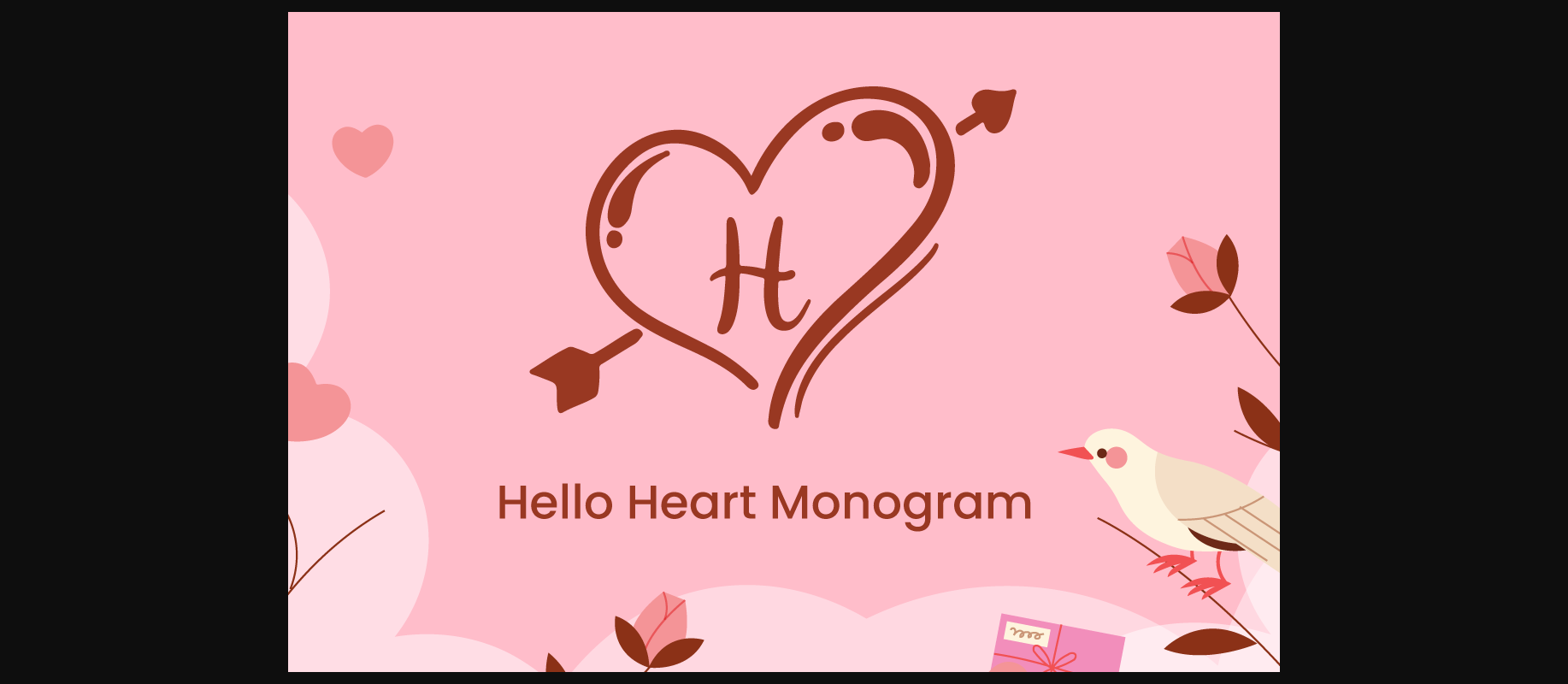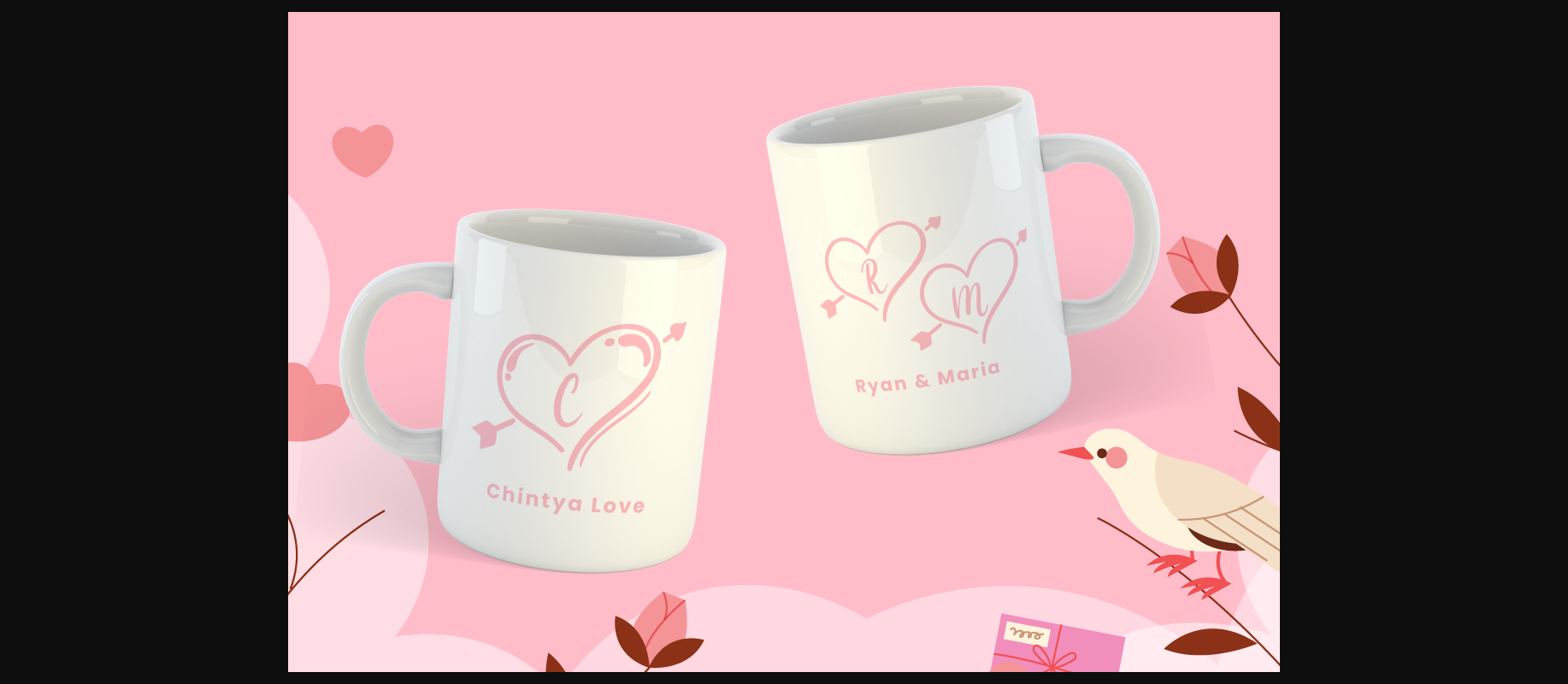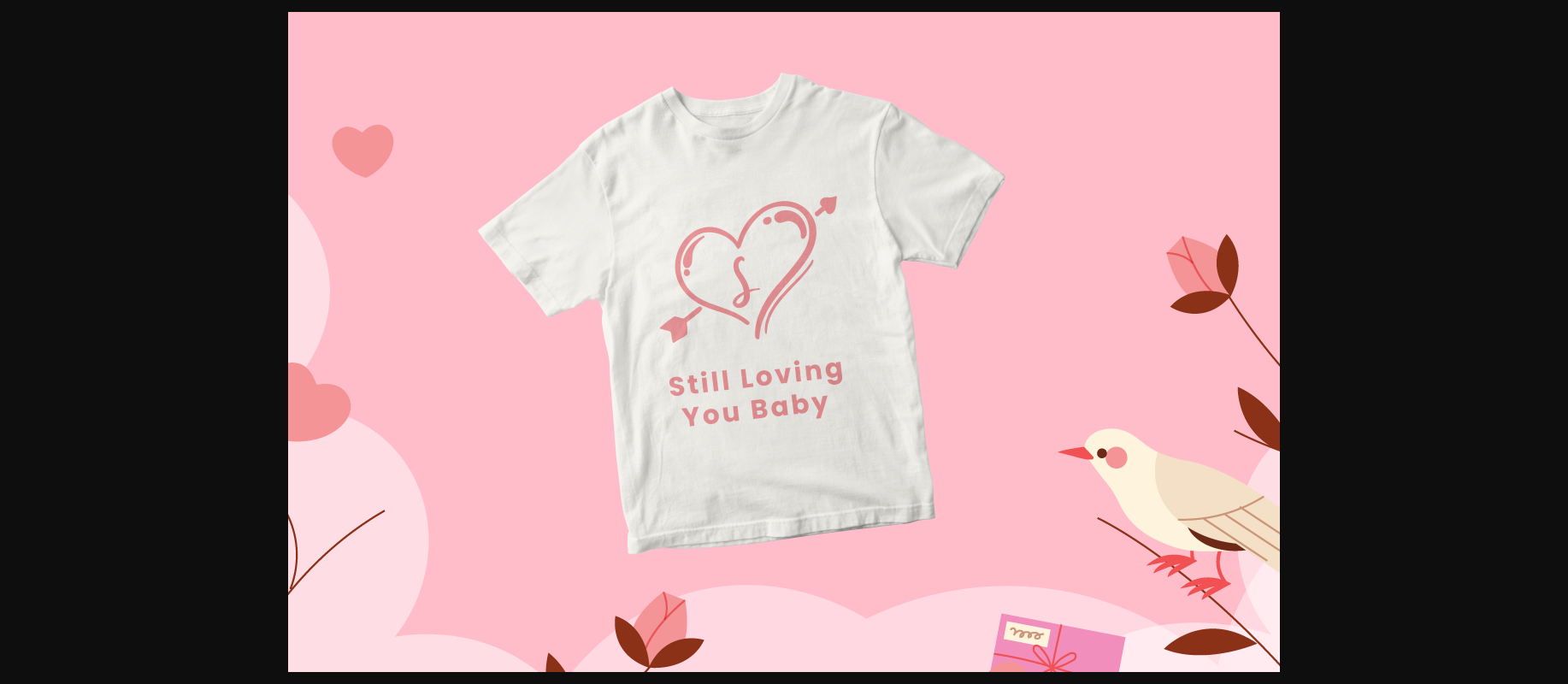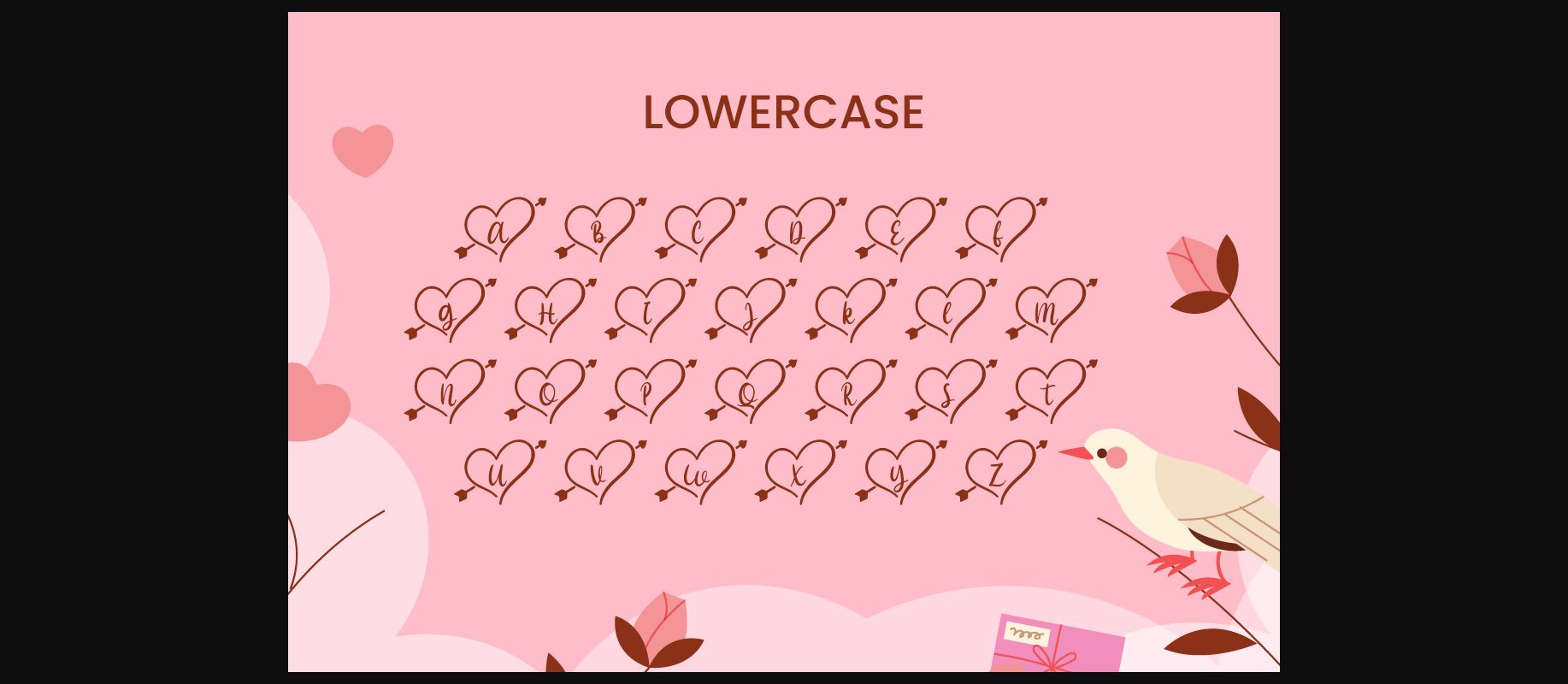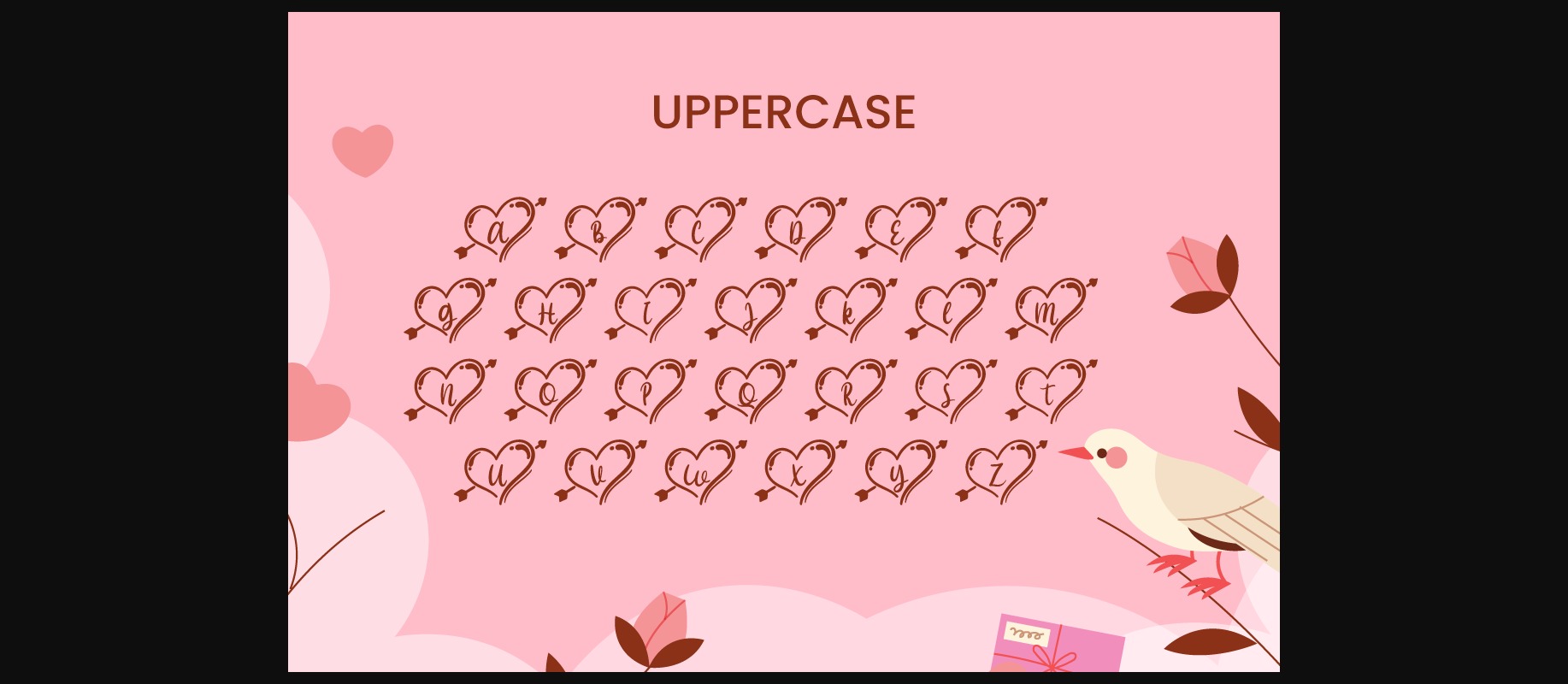
Hello Heart Monogram Font
About Hello Heart Monogram Font
Hello Heart Monogram is a romantic Valentine themed decorative font. Fall in love with its authentic design and use it for your special occasions, business designs, logos, branding, social media posts, and wedding cards.